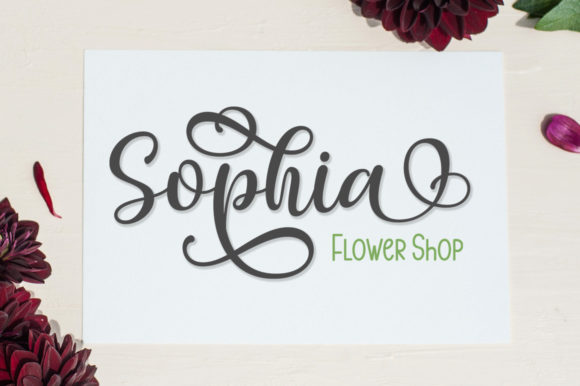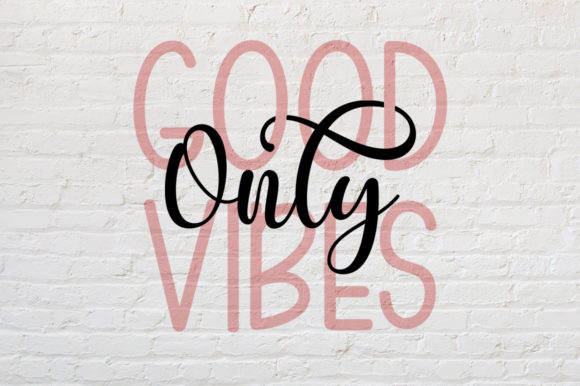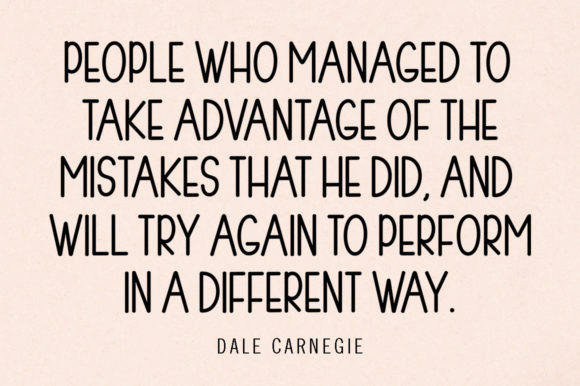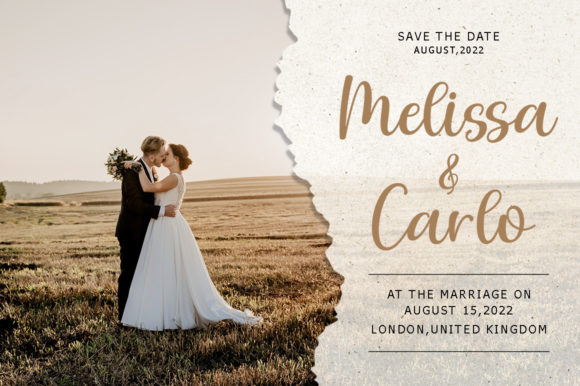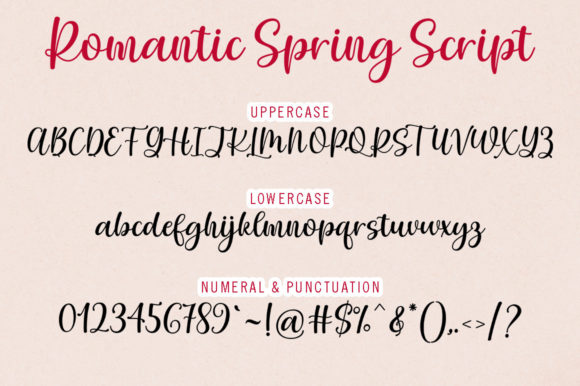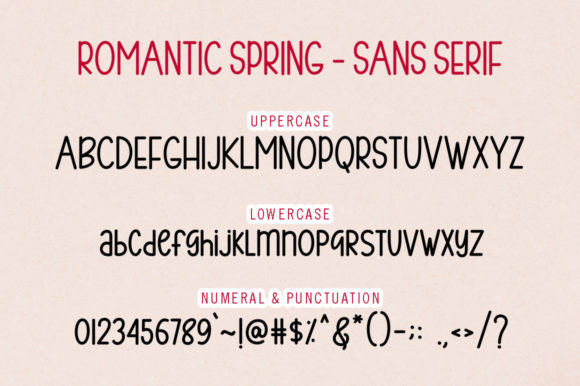
Introduction to Romantic Spring Font
Have you ever been brainstorming a creative project and felt like you’re missing that special something to make it truly stand out? Maybe you’re working on a wedding invitation, a love letter, or a beautiful piece of stationery, and you want to infuse it with a touch of romance and elegance. That’s where the Romantic Spring Font comes in – a stunning, high-quality calligraphic typeface that will add a luxurious feel to any design project.
This gorgeous font is more than just a pretty face – it’s a valuable resource for designers who want to create truly unique and eye-catching designs. With its beautiful, flowing characters and transparent background, the Romantic Spring Font is the perfect addition to any design arsenal. And the best part? It’s available for free download, making it an accessible and affordable resource for designers of all levels.
In this article, we’ll dive deeper into the world of the Romantic Spring Font and explore its many features and benefits. From its PUA-encoded characters to its beautiful ligatures, we’ll show you why this font is a must-have for any designer looking to add a touch of romance and sophistication to their work.
Key Features of Romantic Spring Font
- High-quality, elegant design perfect for a creative project
- Features a large character set, including uppercase and lowercase letters, numbers, and punctuation
- Designed to be versatile and suitable for various design applications, from wedding invitations to branding materials
Honest Review: Romantic Spring Font
As a designer, I’m always on the lookout for unique and high-quality design resources to elevate my creative projects. The Romantic Spring Font caught my attention with its delicate and whimsical feel.
- ✨ Beautiful, hand-drawn design elements that add a touch of elegance to any project.
- ✨ A wide range of font styles and sizes to choose from, making it perfect for various design needs.
One of the standout features of the Romantic Spring Font is its transparent background, which allows for seamless integration with any design. The high-quality design ensures that the font looks great even at large sizes.
- ⚠️ Limited customization options, which may not be suitable for designers who want to make significant changes to the font.
- ⚠️ May not be suitable for projects that require a more modern or bold aesthetic.
Overall, the Romantic Spring Font is a great addition to any designer’s toolkit. Its unique design and high-quality feel make it perfect for creative projects that require a touch of elegance and sophistication.
The Romantic Spring Font is a beautiful, high-quality design resource perfect for adding a touch of elegance to your creative project. With its delicate, floral elements and transparent background, this font is ideal for creating visually appealing designs.
- Use it for wedding invitations, floral arrangements, and garden-themed designs.
- Combine it with other fonts for a unique, layered look.
- Experiment with different colors and backgrounds to create a cohesive design.